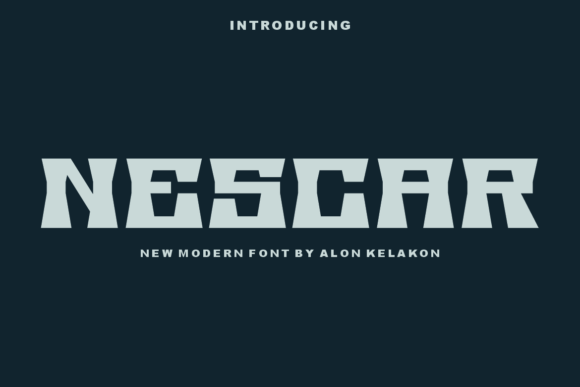
Dive into the realm of digital allure with Nescar Font, the ultimate typeface for tech-savvy visionaries. Engineered to ignite your brand's presence, Nescar boasts an arsenal of captivating characters that dance across the screen, commanding attention like a symphony of pixels.
Unleash your creativity and let Nescar's mesmerizing curves and sharp angles paint a masterpiece that reflects the essence of your brand. Each letter is a stroke of genius, meticulously crafted to evoke a sense of dynamism and innovation.
With Nescar, your logos will leap off the page, radiating an aura of cutting-edge sophistication. Its versatile nature empowers you to craft branding that embodies the essence of your tech enterprise, leaving an unforgettable mark on the digital landscape.
Transform your quotes into mesmerizing works of art, where every word carries the weight of your brand's message. Nescar's captivating letterforms will elevate your designs to new heights, captivating your audience and leaving them spellbound by your brand's allure.
Embrace the power of Nescar Font today and let its digital magic weave a web of enchantment that will ignite your brand's presence and propel it to the forefront of the tech world.